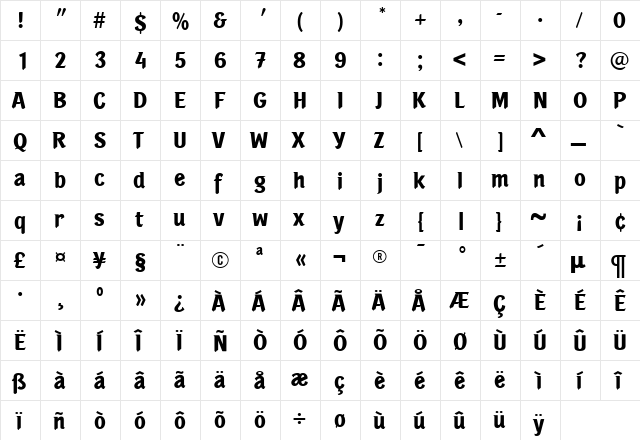
PortobelloDemi Roman
Design Context for PortobelloDemi Typeface
PortobelloDemi is a composed and adaptable typeface that performs quietly and consistently across a wide range of design contexts.
Pro Tip: Use PortobelloDemi in both headline and body roles to test its range before committing to a single application.